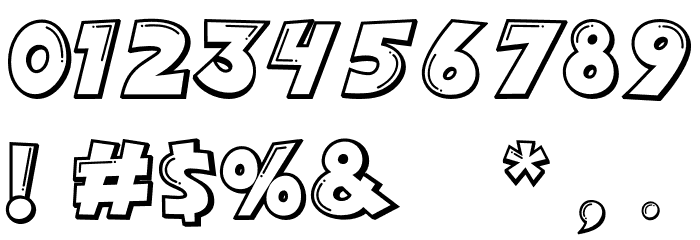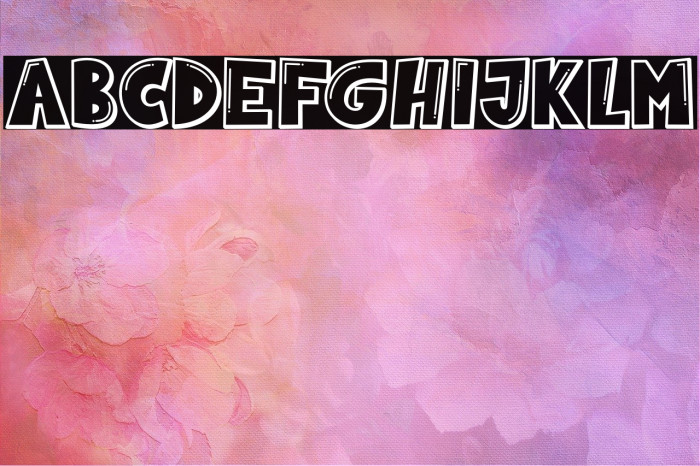
PlasticLove-Regular Font
This font features a bold and playful design with a three-dimensional effect that gives each character a sense of depth. The letters are outlined with a thick black stroke, creating a striking contrast against the white interior. The style is reminiscent of comic book lettering, with exaggerated curves and angles that add a dynamic and energetic feel. The numbers and special characters follow the same design principles, ensuring consistency across all elements. This font is ideal for projects that require a fun and eye-catching aesthetic.
A bold, playful font with a 3D comic book style.
- Proposed Projects: Ideal for comic books, children's books, posters, and playful branding.
- Overall Style: Playful, Comic
- Use Case: Headlines, Posters, Branding